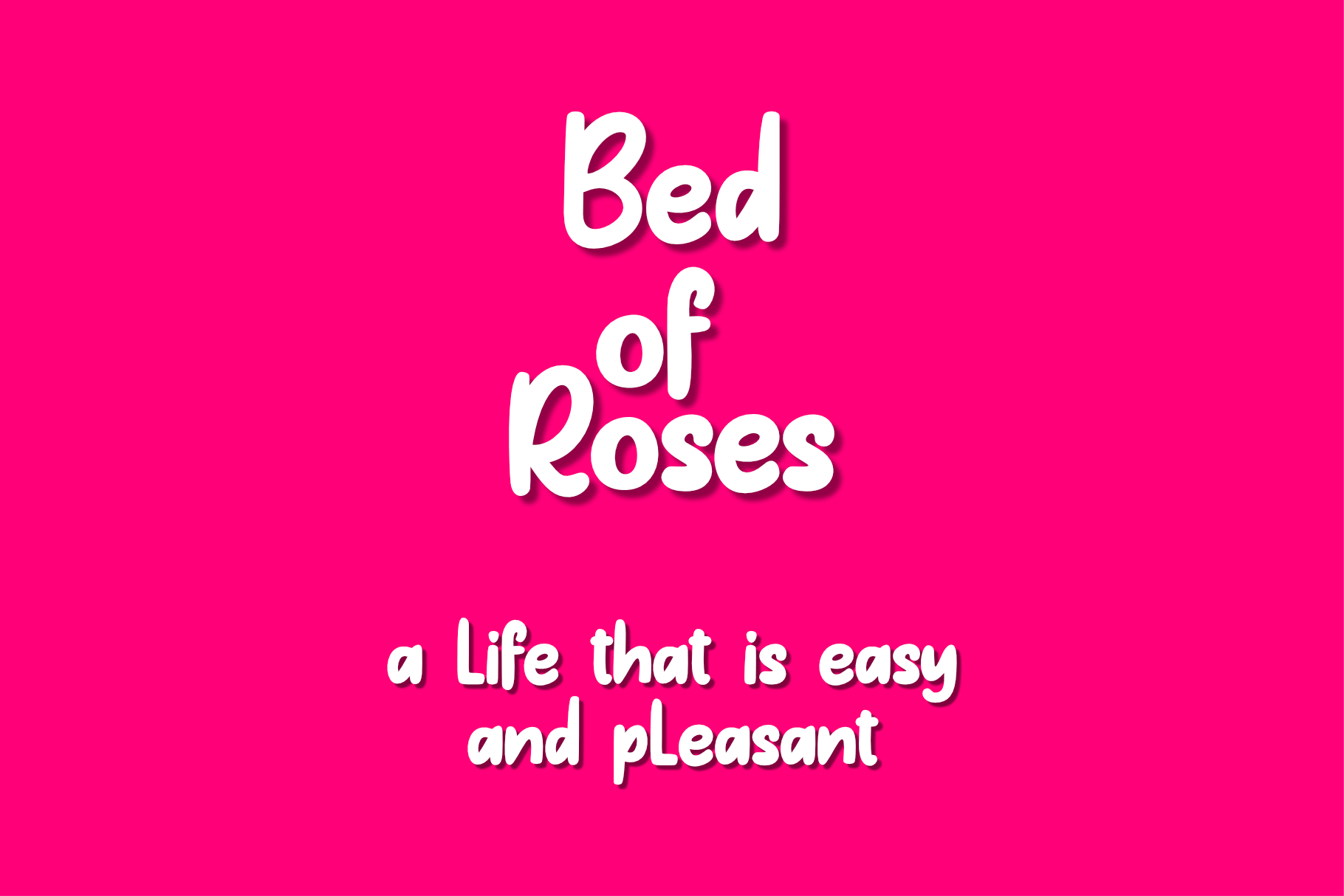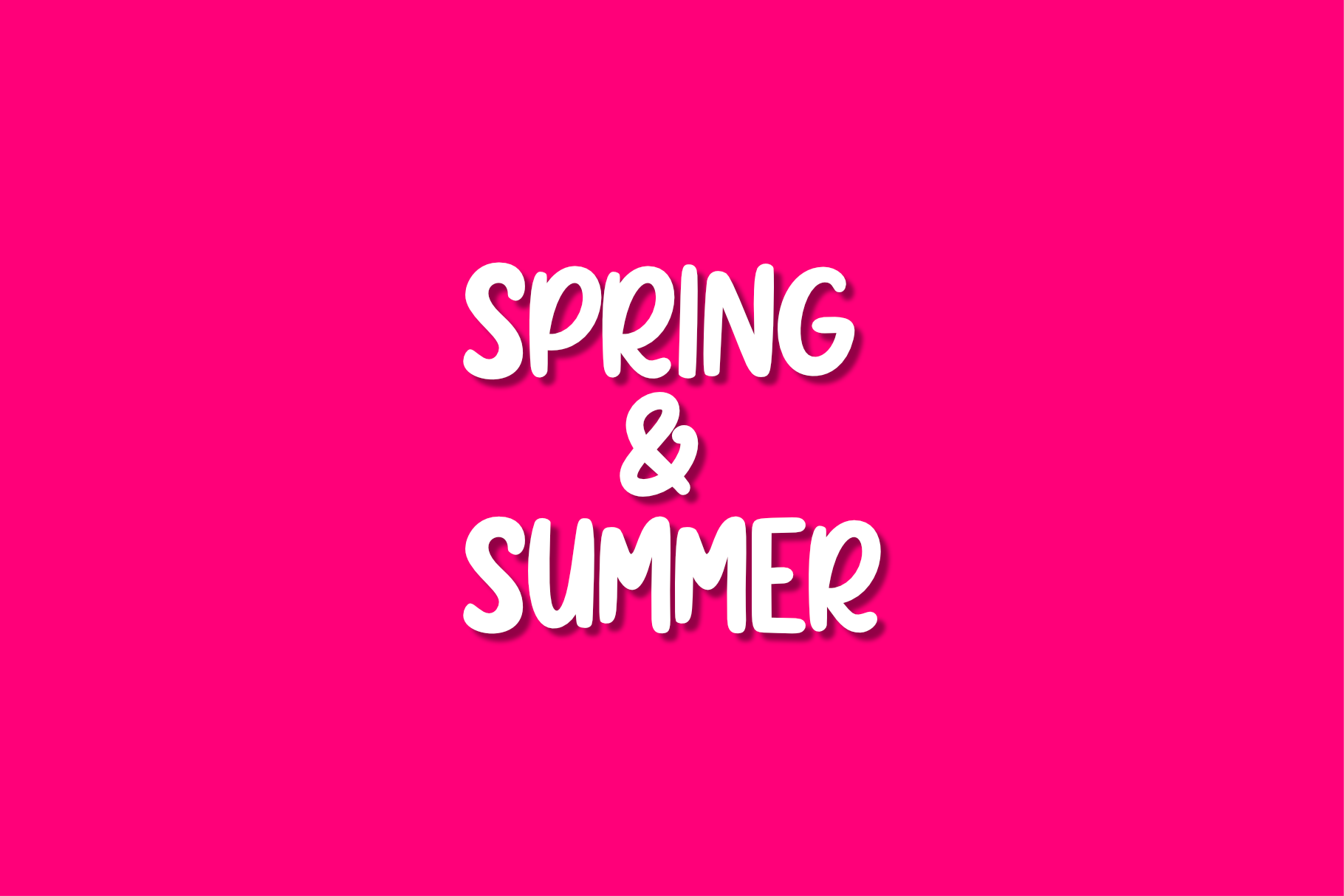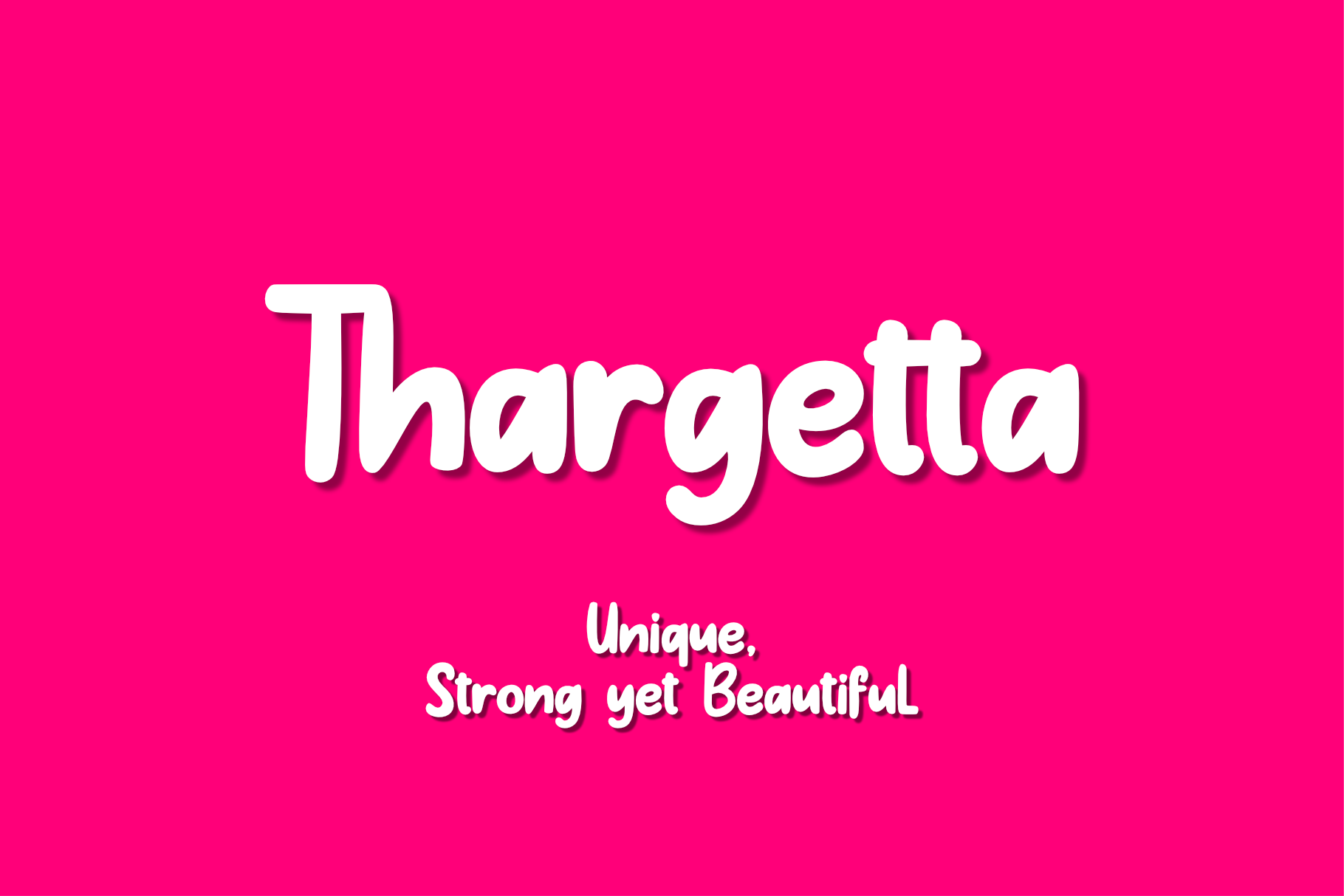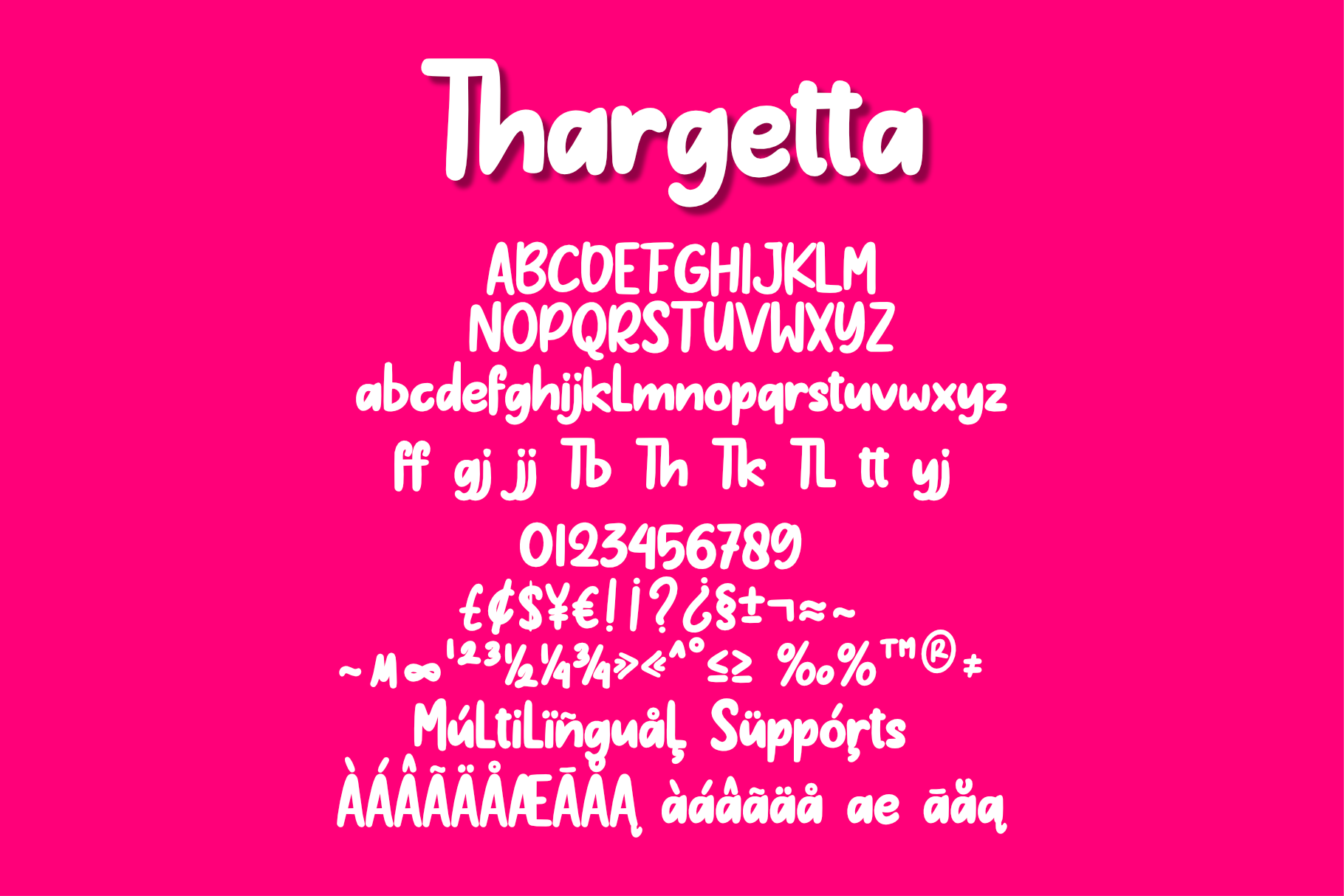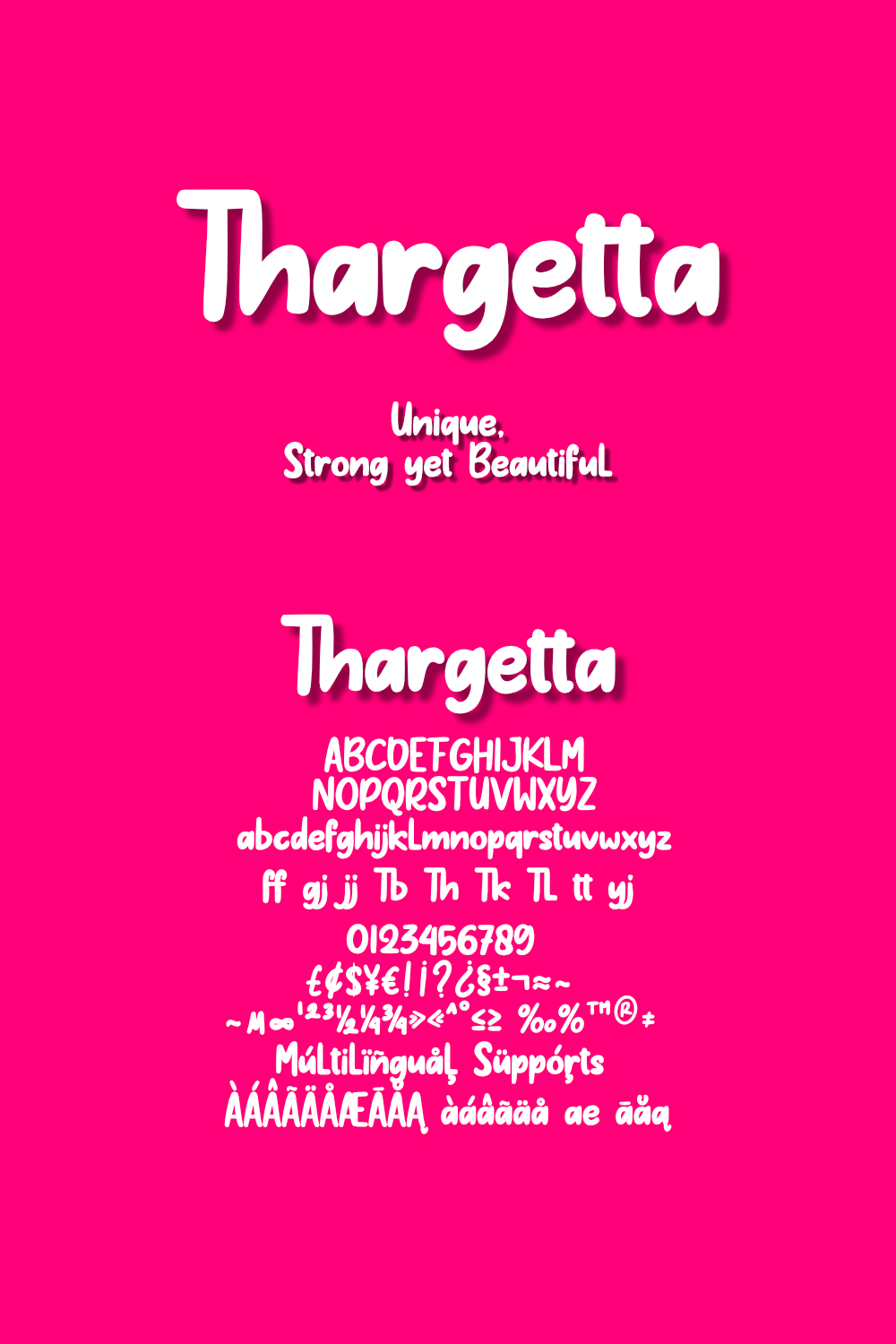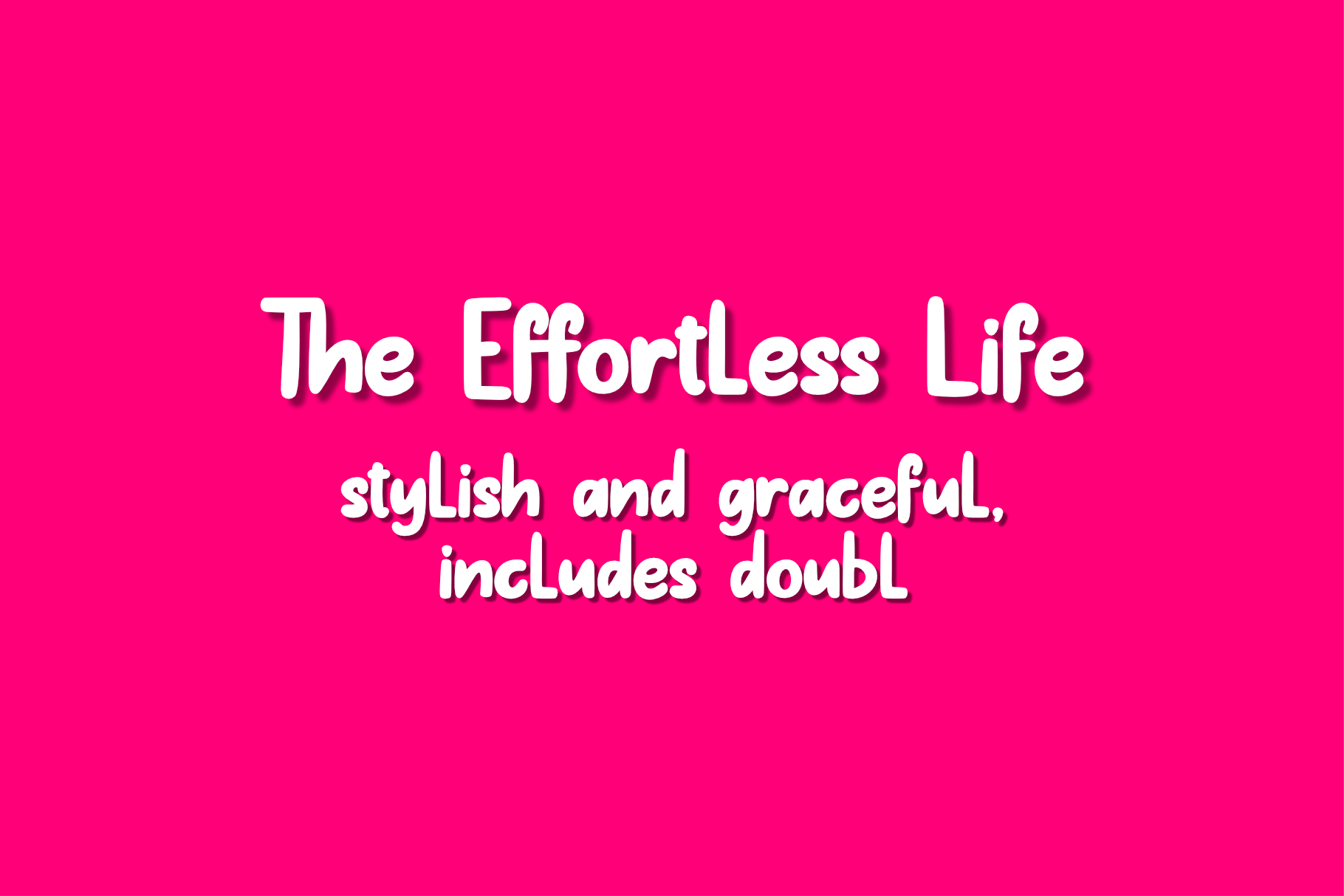
Introducing Thargetta, a striking decorative sans font that blends sharp character with sleek versatility. With its bold lines, unique letterforms, and eye-catching style, Thargetta is perfect for designs that demand attention. Whether you’re crafting standout logos, modern posters, editorial headlines, or stylish branding, this font adds a confident, artistic flair to every project.